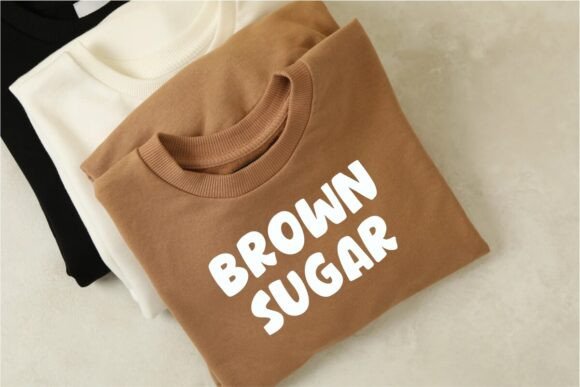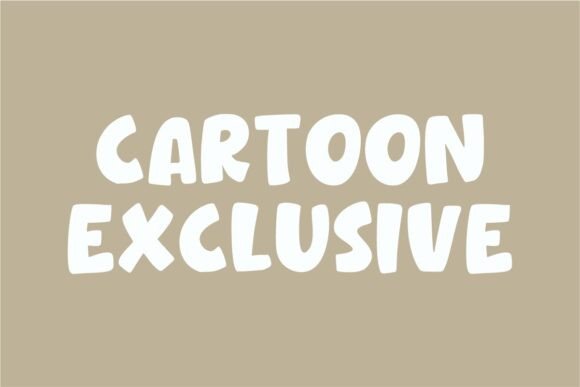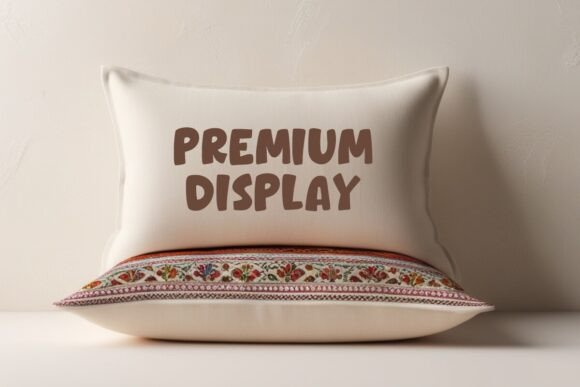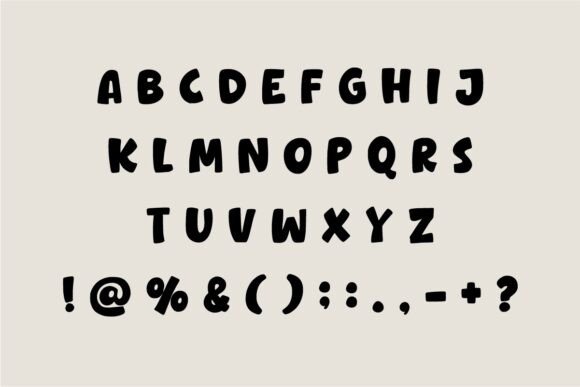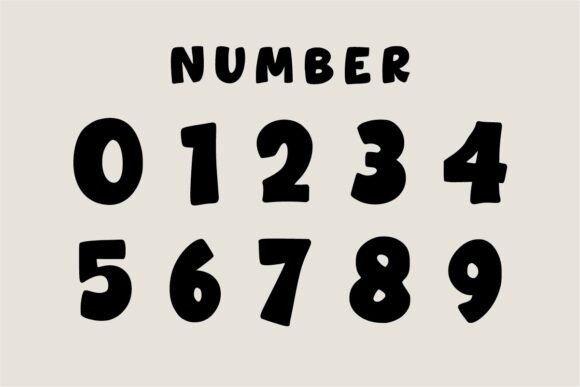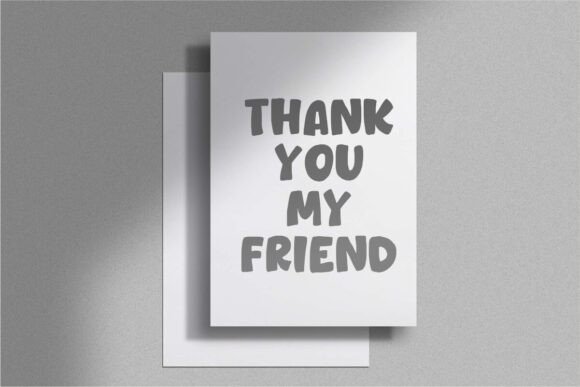
Introduction to Disney Teather Font
As a designer, have you ever been on a creative high, searching for the perfect font to bring your project to life? The excitement of discovering that one special font that makes everything fall into place is like finding a treasure trove of inspiration. For those who love the magic of Disney, we’re thrilled to introduce the enchanting Disney Teather Font – a display font that embodies the whimsy and charm of the beloved brand.
This free download font is a game-changer for designers, offering a unique and playful flair that’s perfect for kids’ apparel, greeting cards, and magazines. With its clean and vibrant design, it’s a valuable resource for any creative project that needs a touch of magic. Whether you’re working on a high-quality design or simply want to add a fun element to your work, the Disney Teather Font is sure to impress.
Key Features of Disney Teather Font
- Unique Disney-inspired design, ideal for creative projects and design resources.
- Designed to be versatile, making it suitable for a wide range of creative projects, from logos and branding to digital art and graphics.
- Perfect for designers and artists looking for a unique and eye-catching font to elevate their design and add a touch of Disney magic to their creative project.
Honest Review: Disney Teather Font
As a designer, I’m always on the lookout for high-quality design resources to elevate my creative projects. Recently, I came across the Disney Teather Font, and I’m excited to share my honest review.
- Unique and playful design: The Disney Teather Font is a one-of-a-kind font that’s perfect for adding a touch of whimsy to your designs.
- Limited use: While the font is great for creative projects, it may not be suitable for formal or professional designs due to its playful nature.
- No bold or italic options: Unfortunately, the font doesn’t come with bold or italic options, which may limit its versatility.
Overall, I’m impressed with the Disney Teather Font, and I think it’s a great addition to any designer’s toolkit. While it has some limitations, its unique design and free availability make it a valuable resource for creative projects.
The Disney Teather Font is ideal for a variety of creative projects, including graphic design, marketing materials, social media graphics, presentations, and documents. Its high-quality design and transparent background make it a versatile and useful design resource.